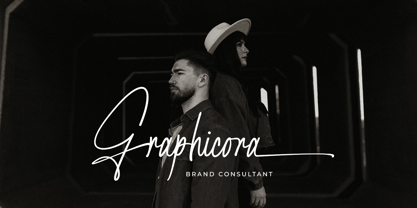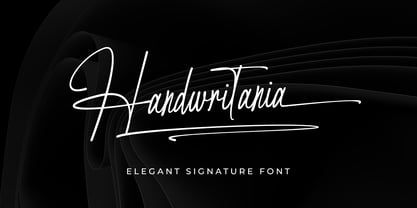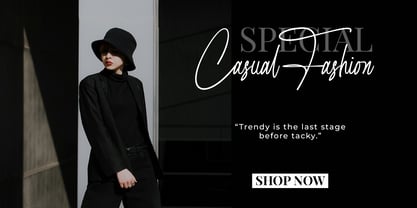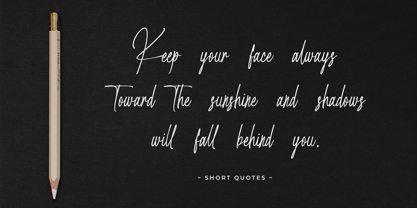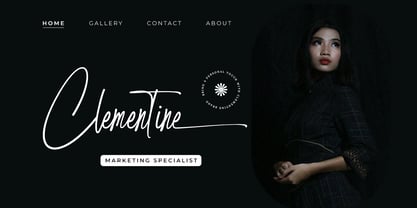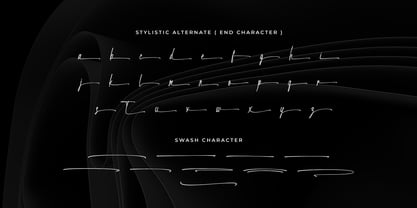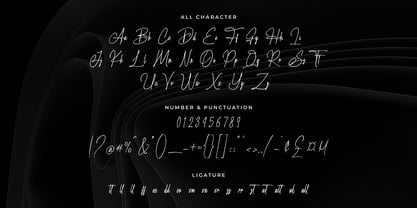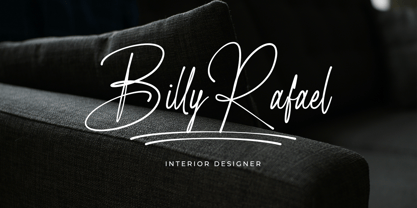
Handwritania
by Bluestype Studio
The Handwritania Font Family was designed by Jefri Dwi Alfatah and published by Bluestype Studio. Handwritania contains 1 styles.
Handwritania is a stylish signature font designed with smooth, flowing strokes and timeless elegance. Perfectly capturing the beauty of handwritten signatures, this font brings a personal and luxurious touch to every design. Ideal for logos, wedding invitations, business cards, packaging, social media, and high-end branding.